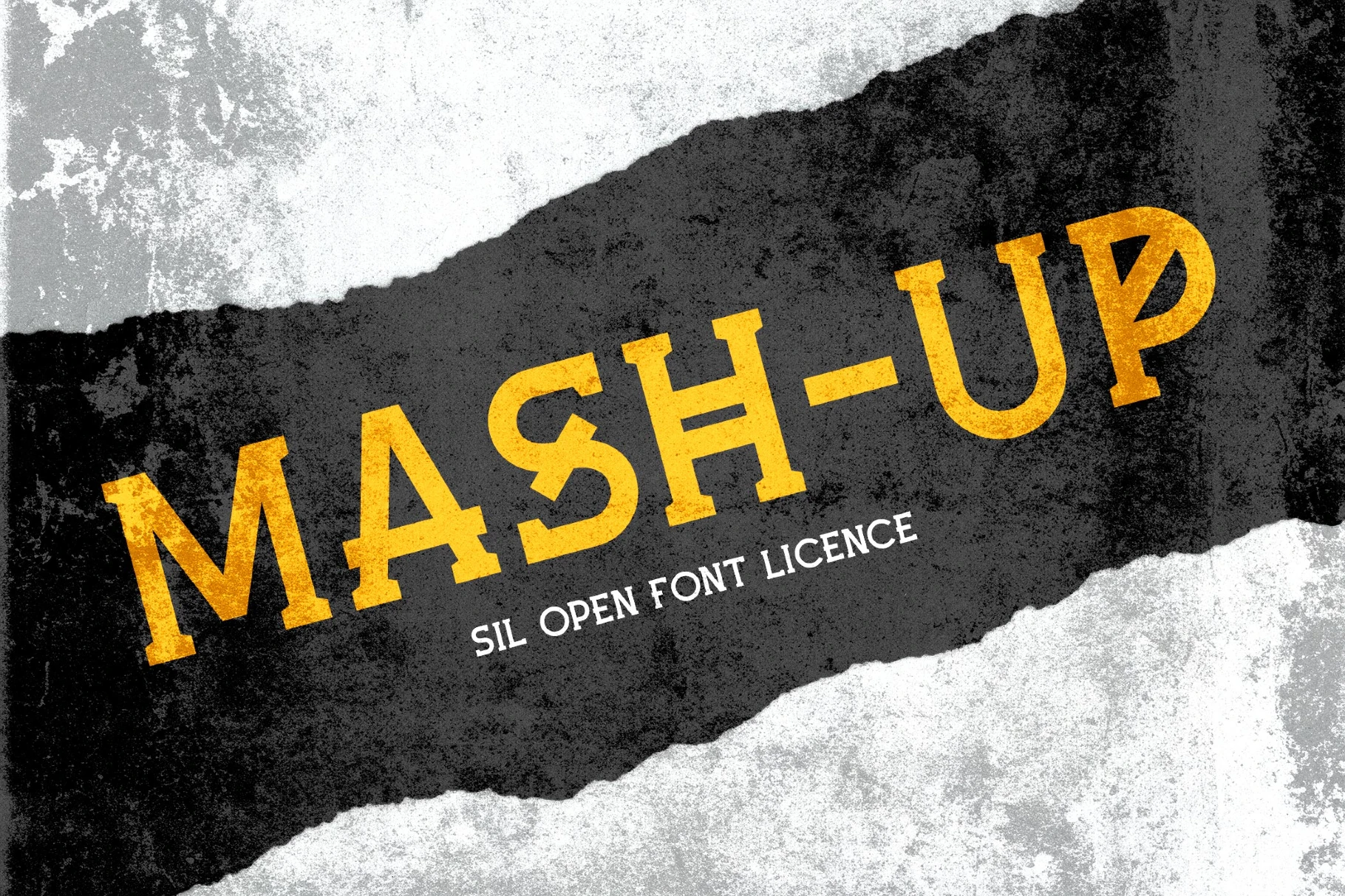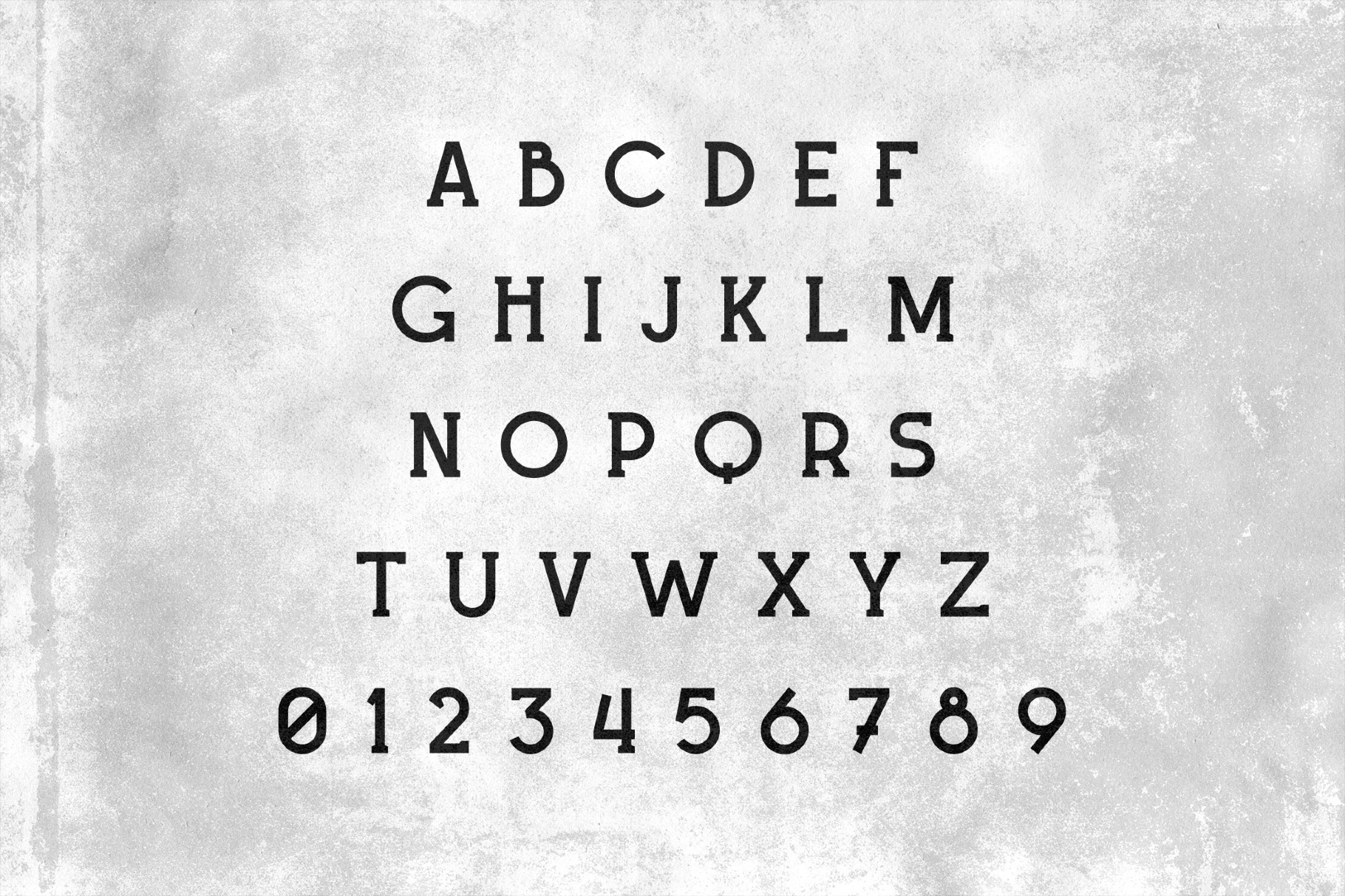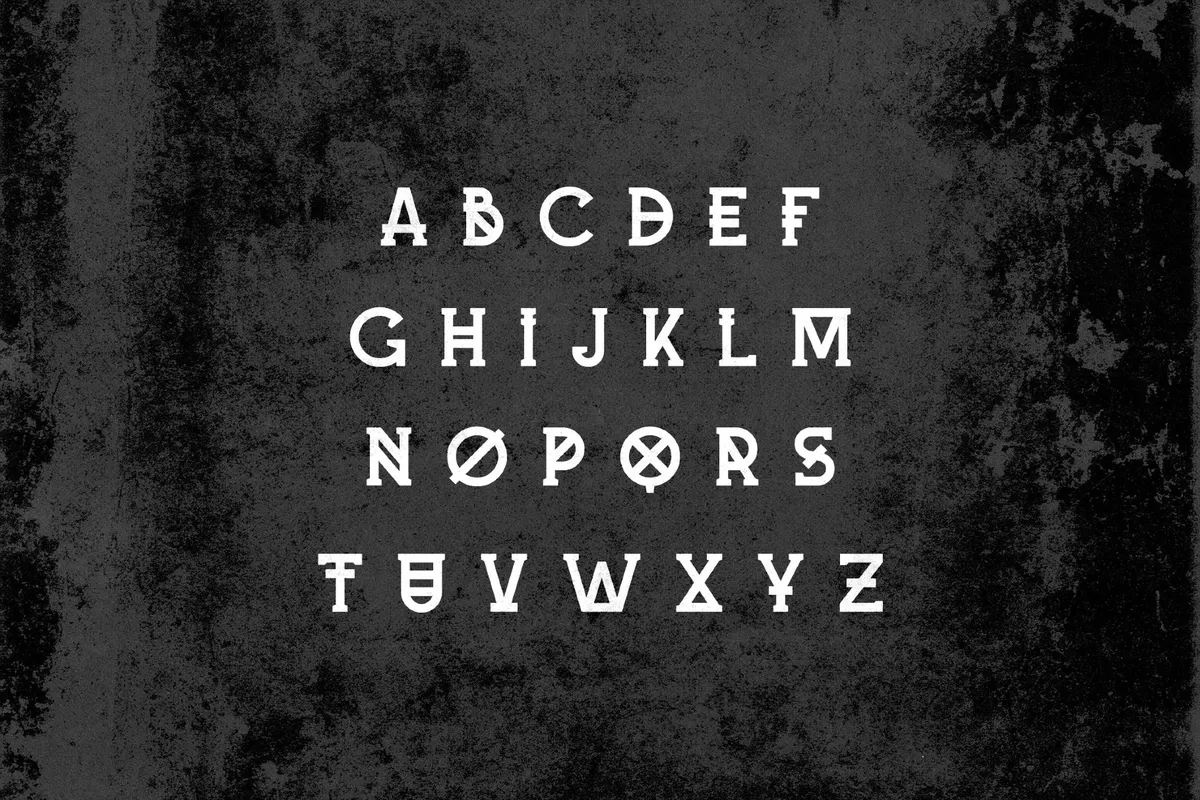
Mash-Up Font
Mash-Up splices together rough blocks, handwritten strokes, and cut-paper shapes. The attitude resorts to DIY punk magazines and 1990s skate graphics. And it’s made for gig poster headlines, album covers, streetwear graphics, game title screens, logo marks, skateboarding branding, festival flyers, and sticker packs.
- Two sets of uppercase Latin letters.